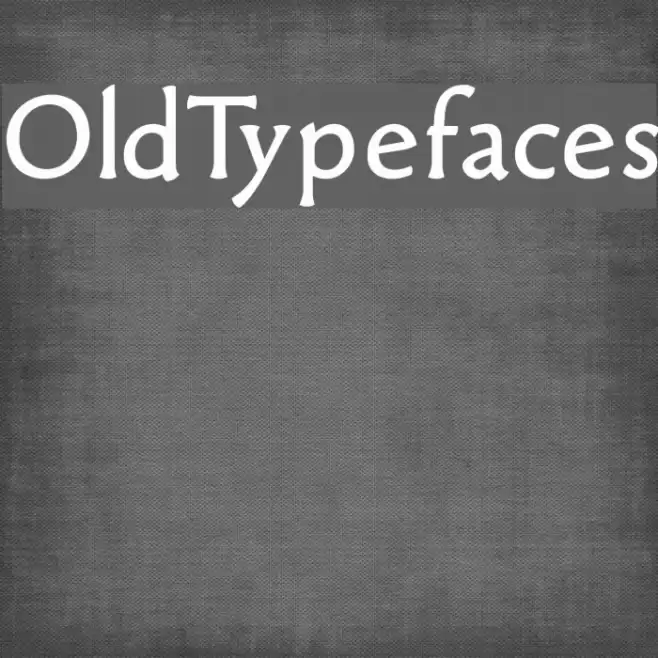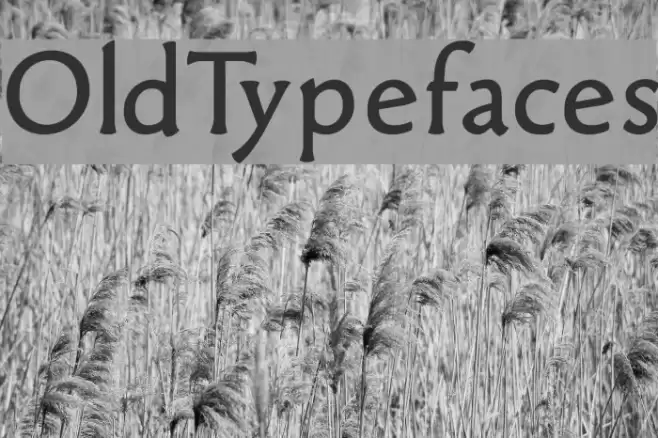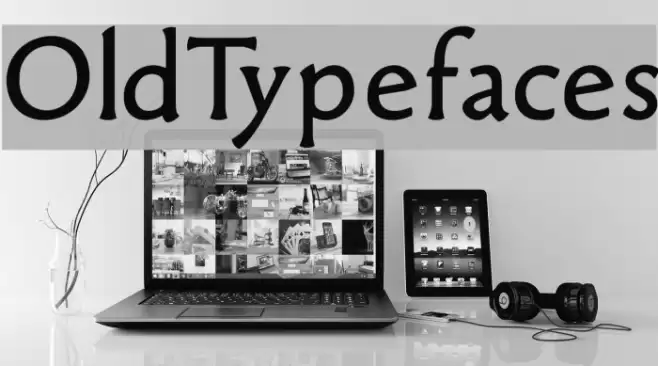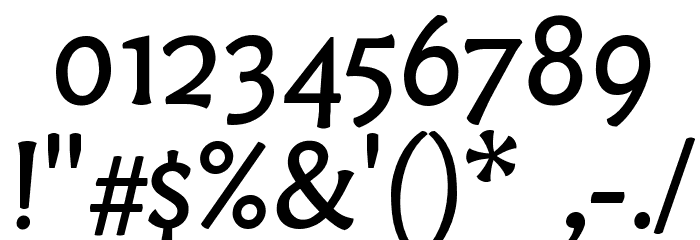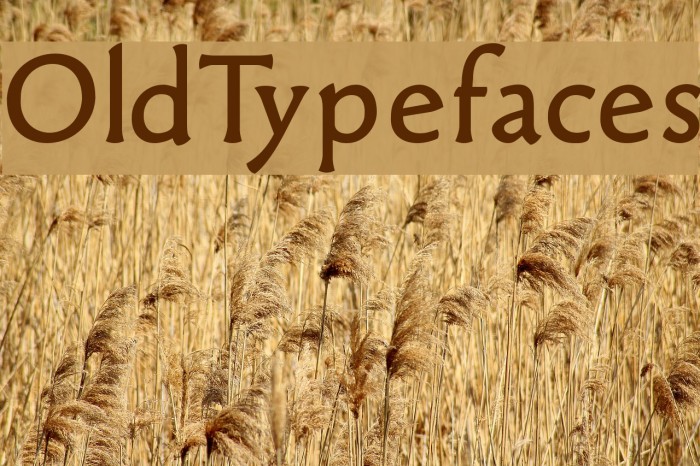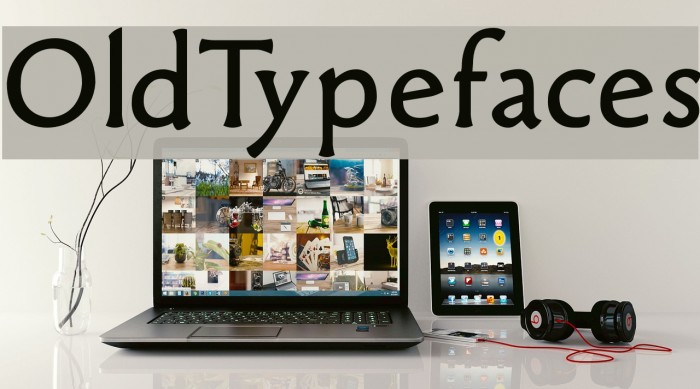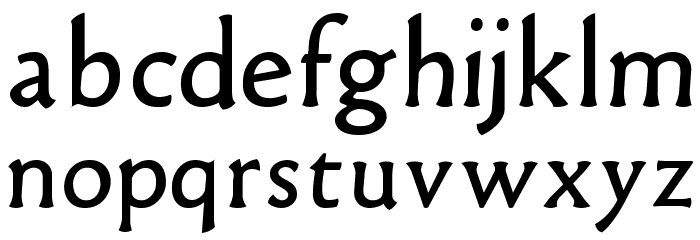
OldTypefaces
This typeface exudes a classic and timeless elegance, characterized by its serif style. The uppercase letters are bold and commanding, with a slight curvature that adds a touch of sophistication. The lowercase letters maintain a consistent style, offering a harmonious blend of tradition and readability. The numerals are distinct and clear, ensuring legibility in various contexts. Special characters are well-integrated, maintaining the overall aesthetic. This font is versatile, suitable for both formal and creative projects, offering a balance between classic design and modern usability.
A classic serif typeface with elegant curves and strong readability.
- Proposed Projects: Ideal for book covers, editorial design, formal invitations, and branding materials.
- Category: Serif
- Overall Style: Classic